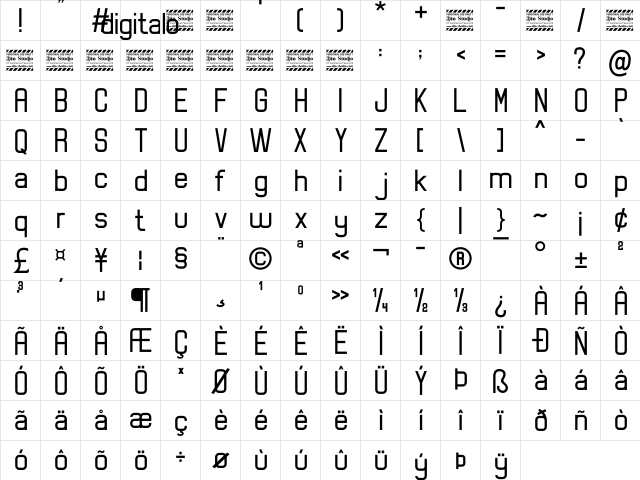
Digitalo Personal Use Regular
| Designer | Donis Miftahudin |
Design Context for Digitalo Personal Use Typeface
Digitalo Personal Use channels digital-age aesthetics through its sharp, structured letterforms — ideal for brands that want to signal innovation.